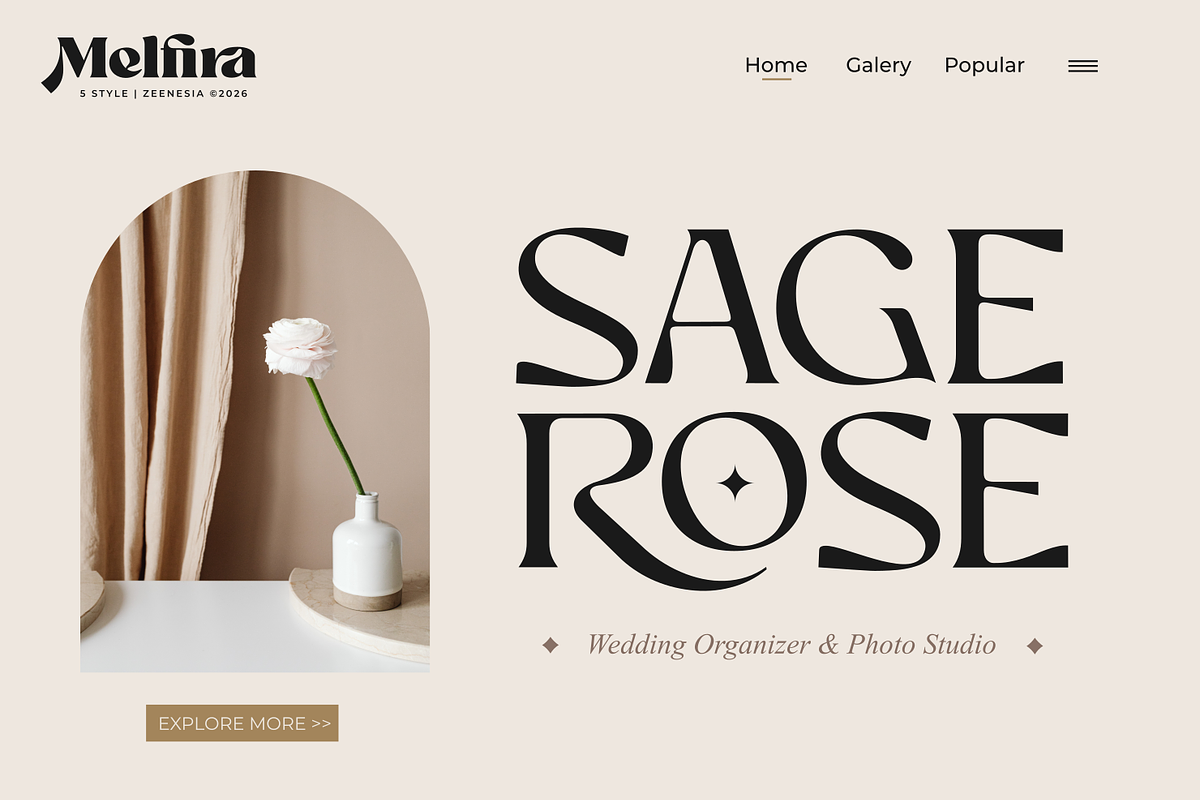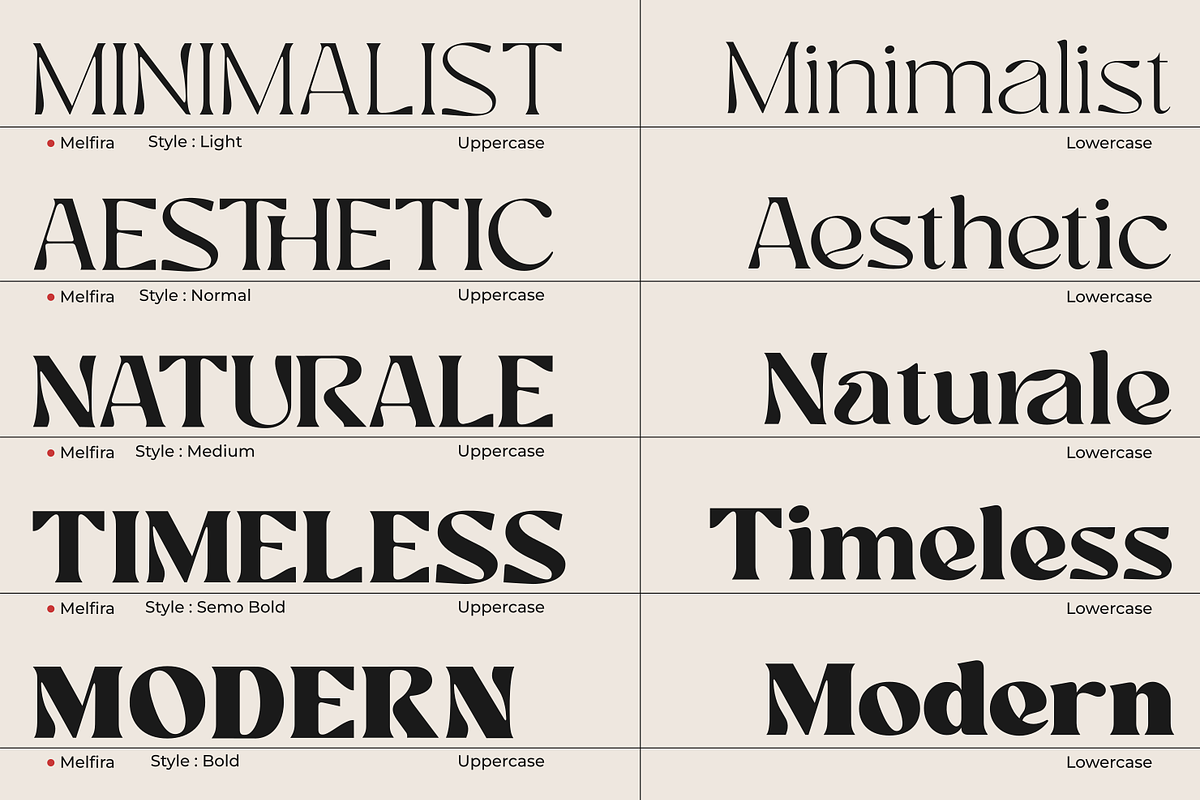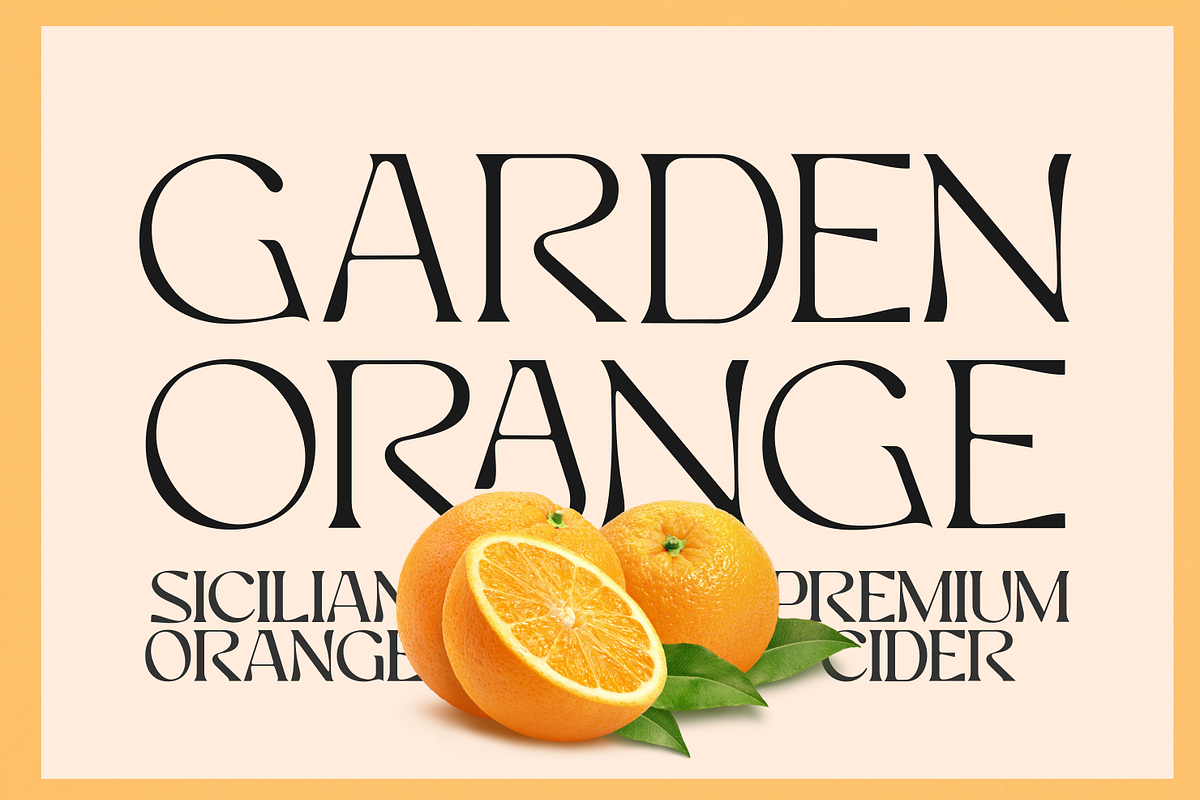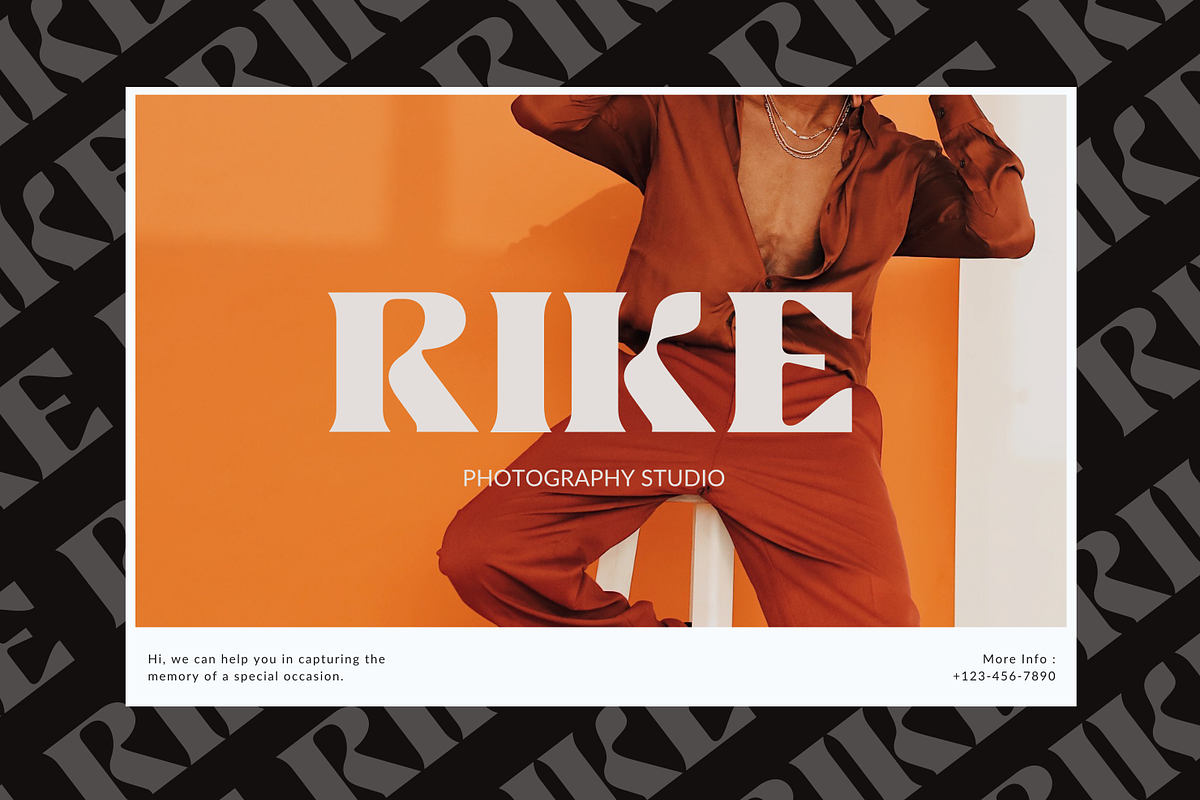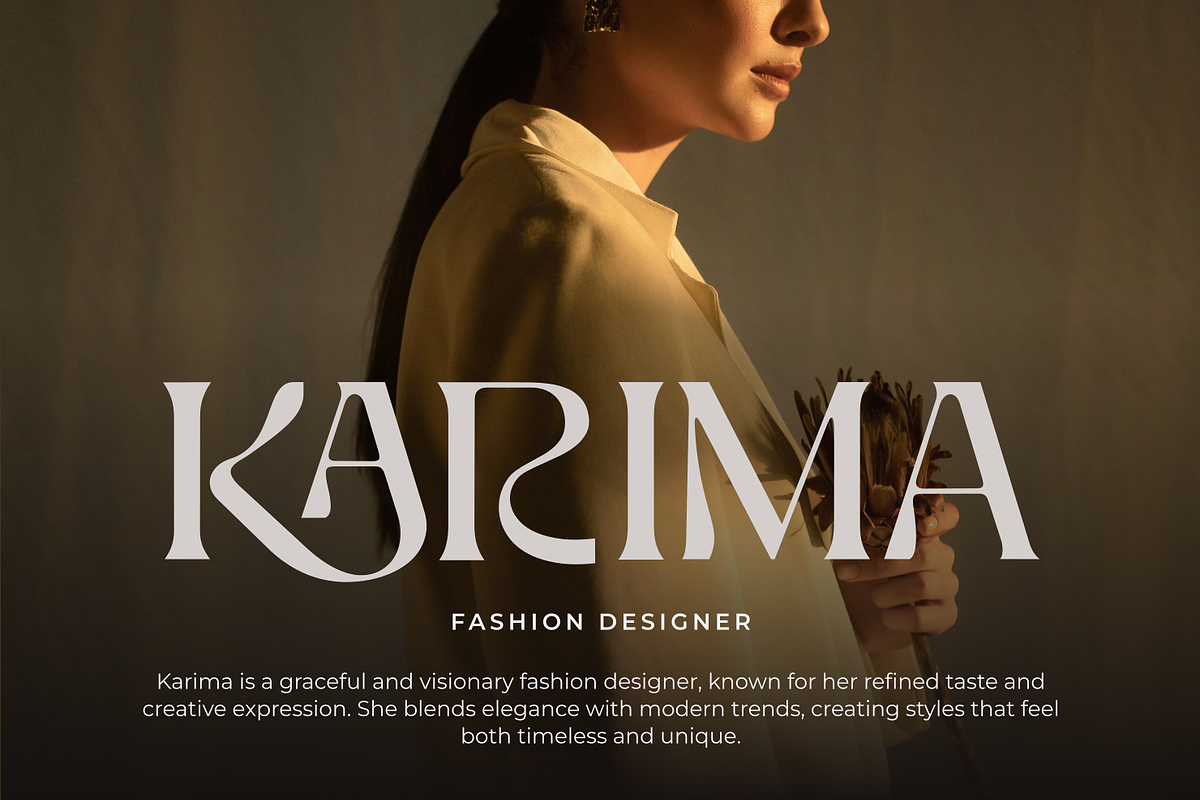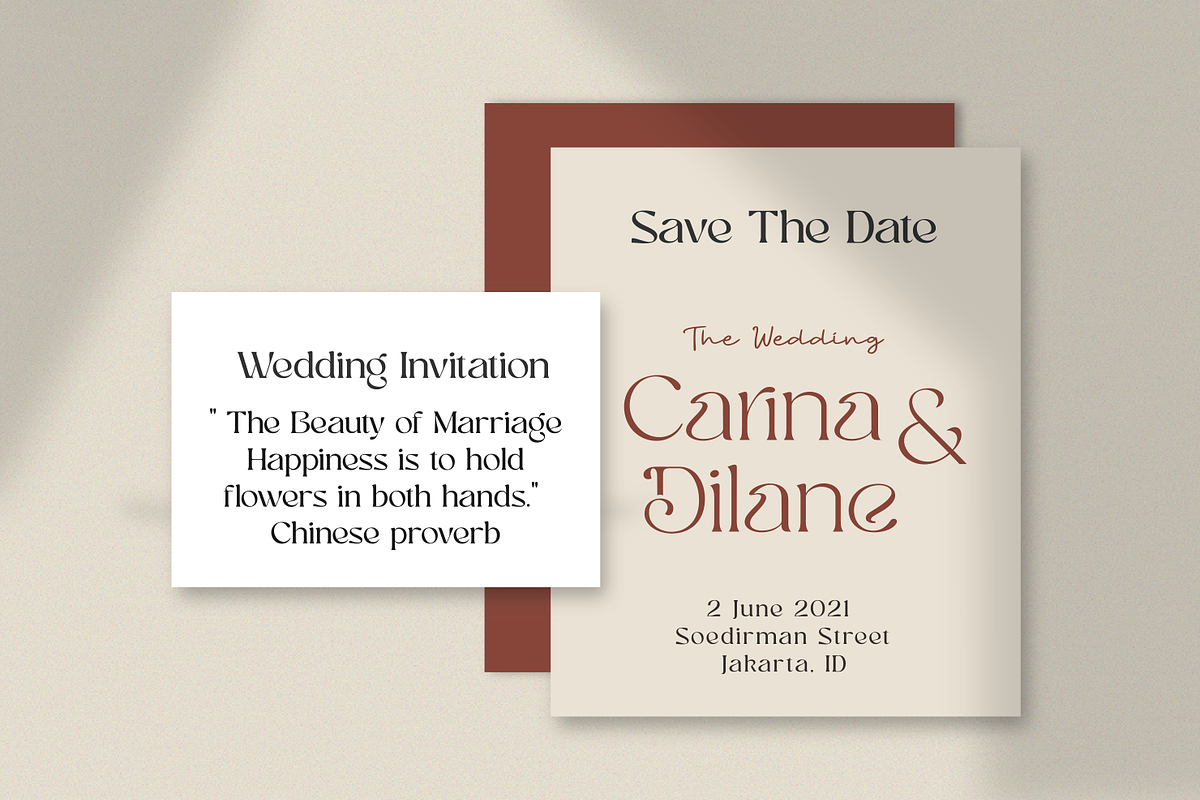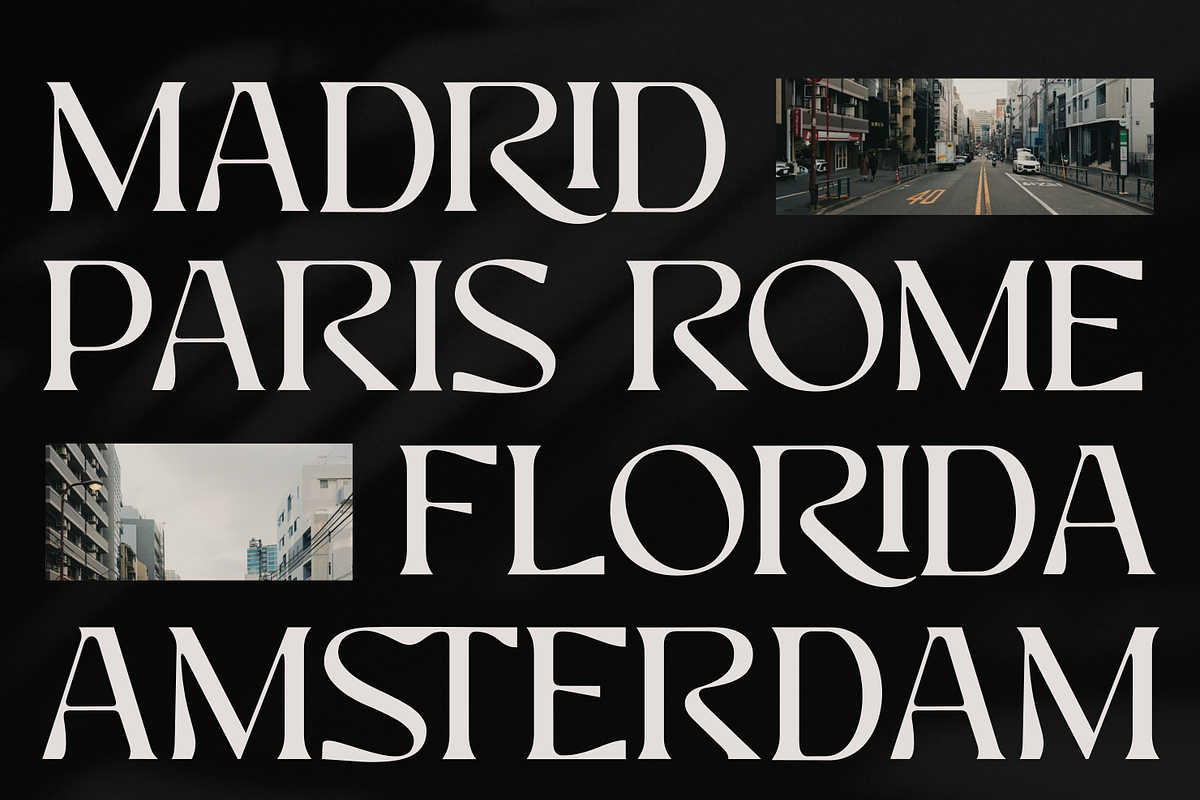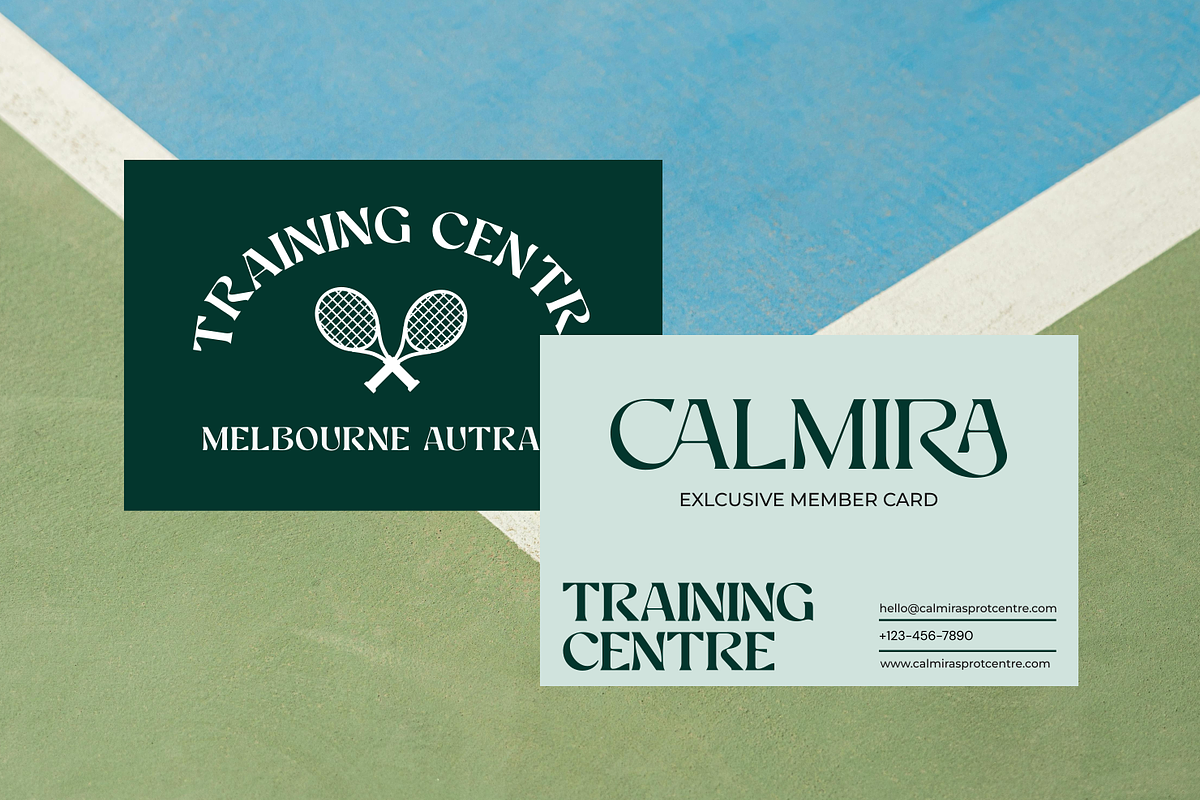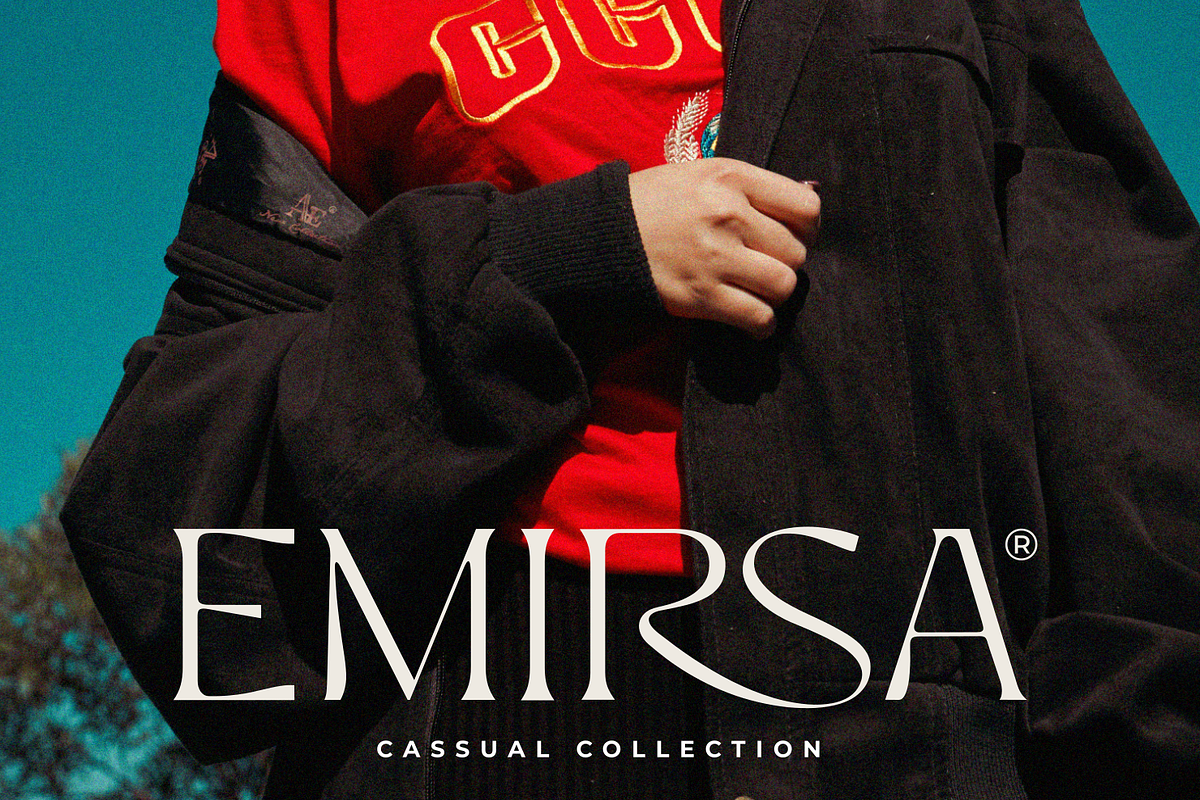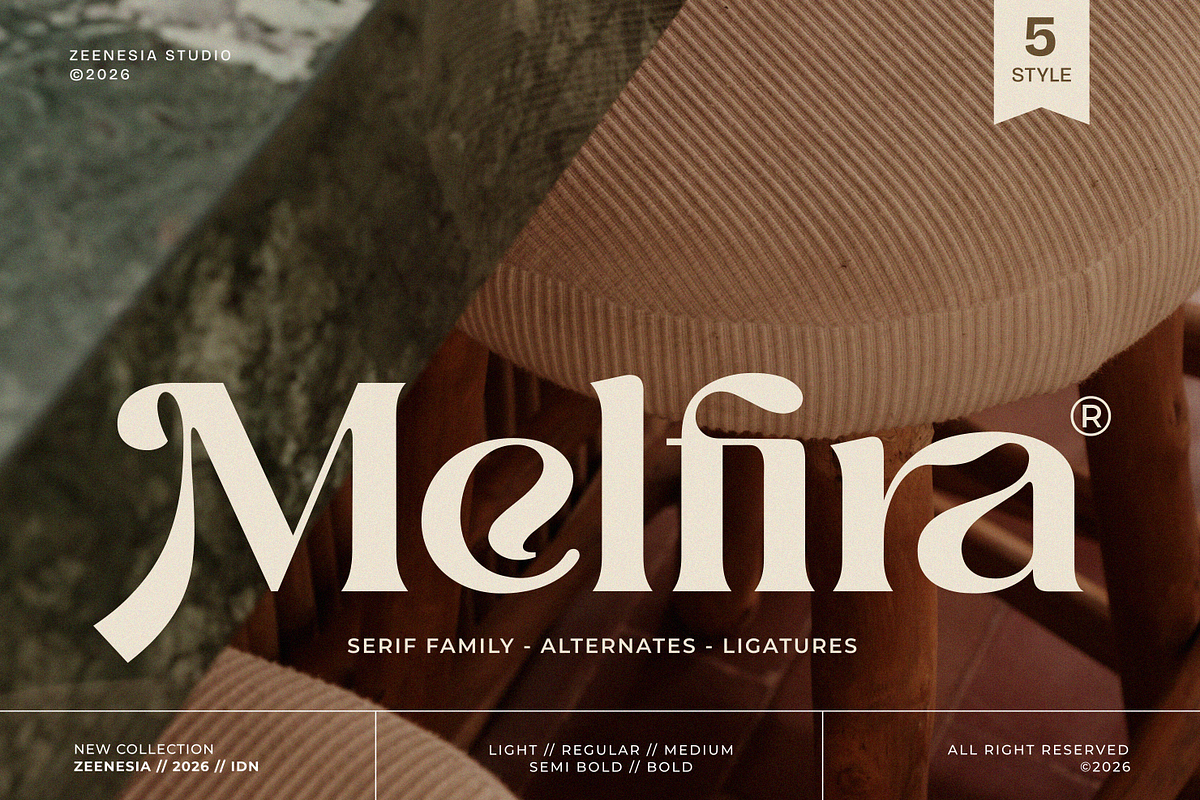
Melfira
Melfira – Modern Elegant Serif Typeface
Melfira is a refined serif typeface that blends modern sophistication with timeless elegance. Designed with graceful curves, high-contrast strokes, and distinctive letterforms, Melfira brings a luxurious and stylish touch to any design.
With 5 versatile styles ranging from Light to Bold, this font family offers flexibility for both subtle and striking typography. Each character is carefully crafted to deliver a harmonious balance between readability and artistic expression.
Perfect for branding, logos, editorial layouts, fashion projects, invitations, and premium packaging, Melfira elevates your design with a classy and contemporary aesthetic.
Make your work stand out with a typeface that speaks elegance in every detail.